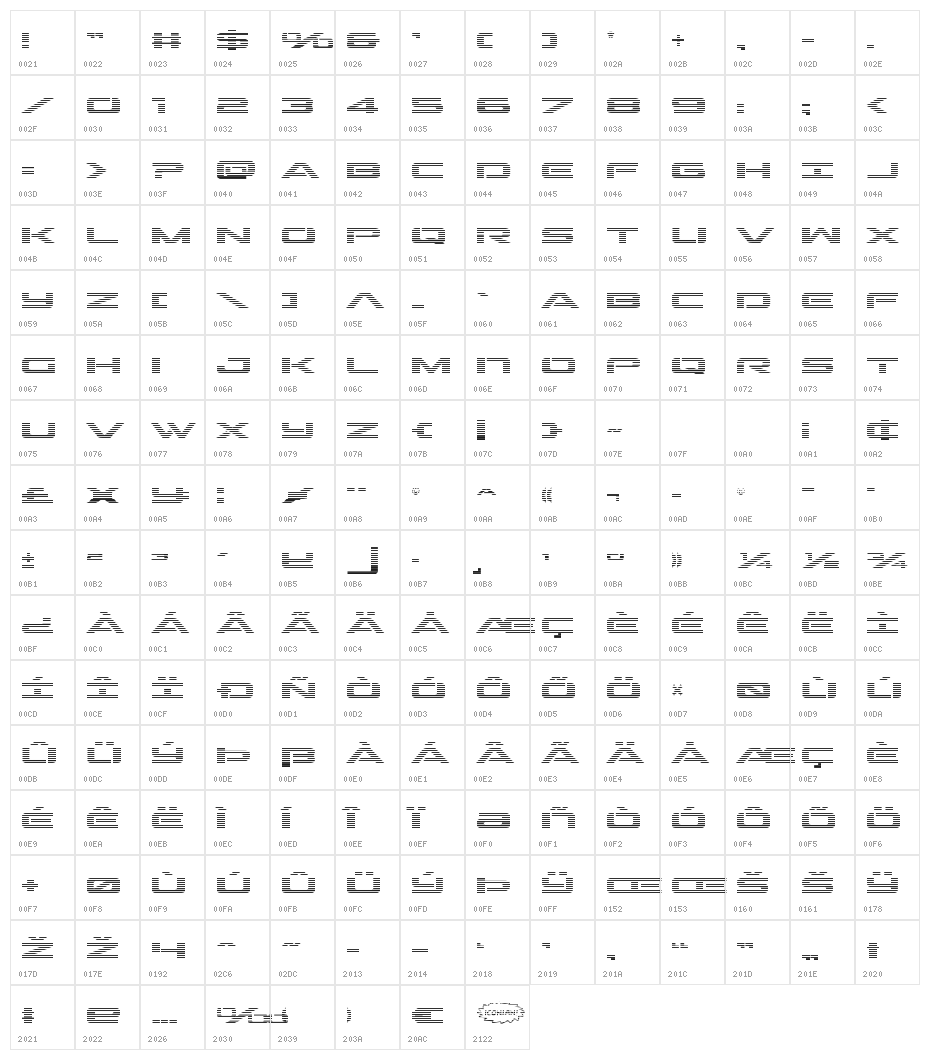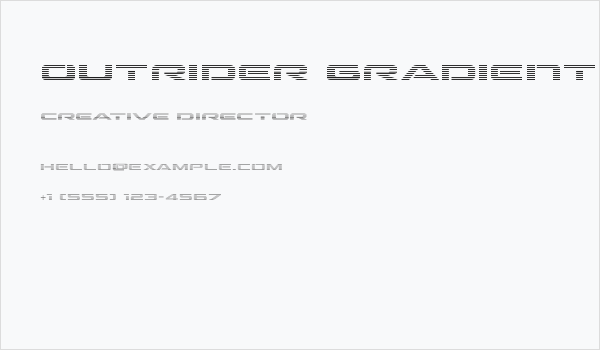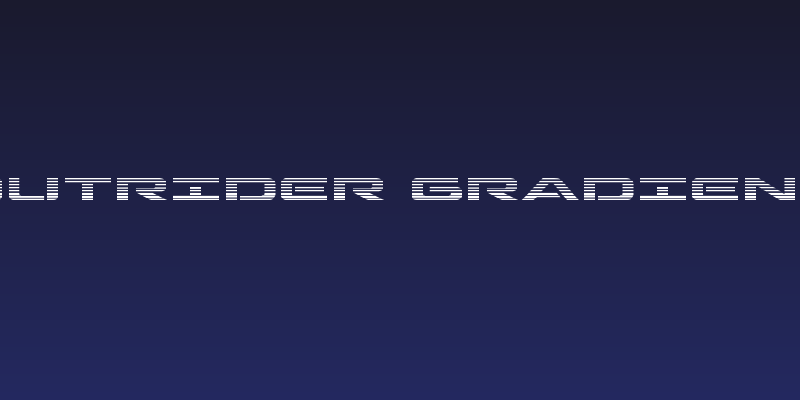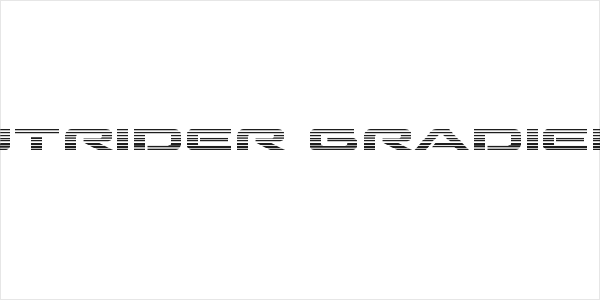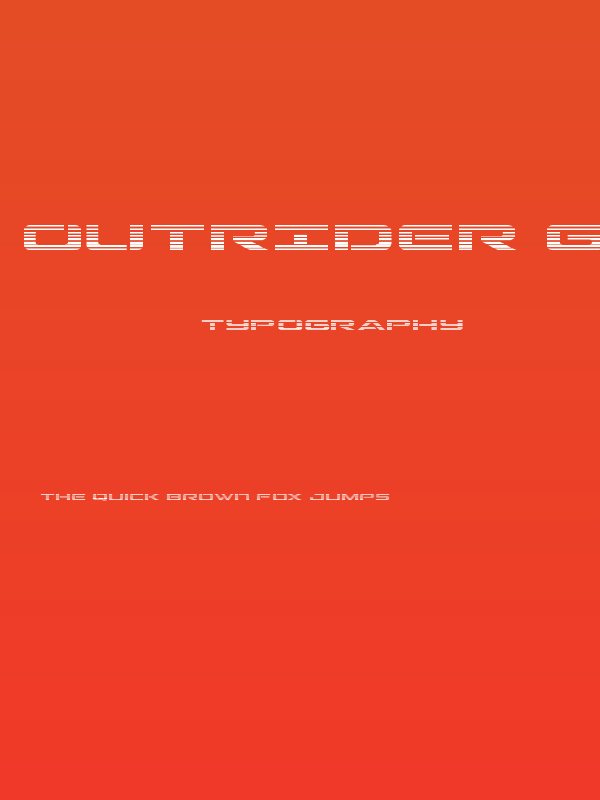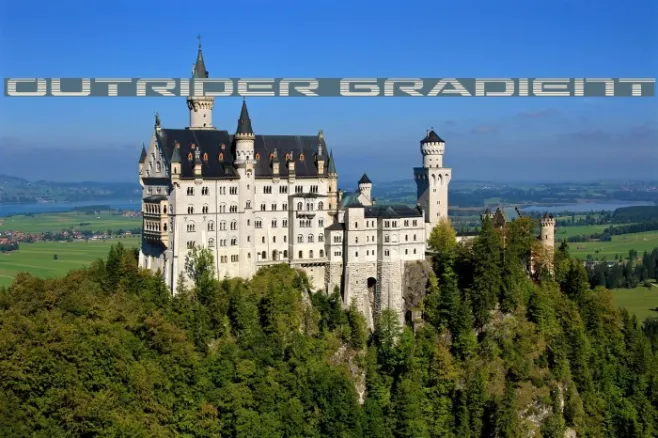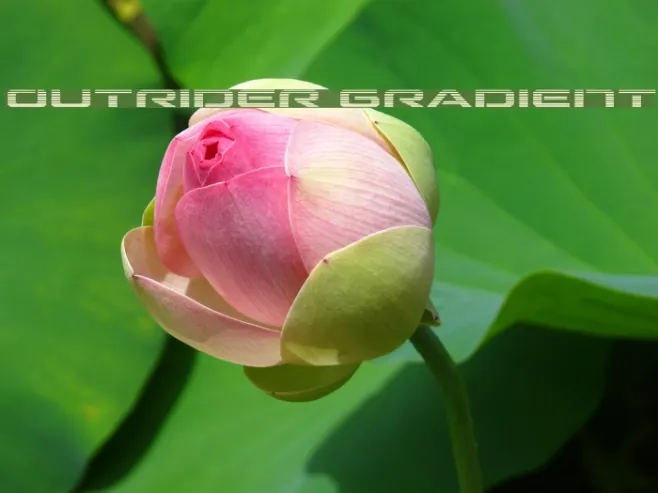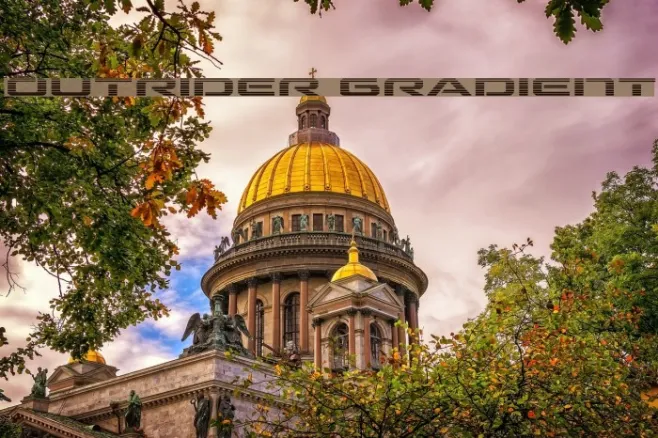
Outrider Gradient Font
Outrider Gradient Description
This font features a futuristic and dynamic design with a distinct gradient effect created by horizontal lines. Each character is composed of multiple parallel lines, giving it a sense of motion and depth. The angular and geometric shapes of the letters contribute to a modern and edgy aesthetic. The uppercase and lowercase letters maintain a consistent style, while the numerals and special characters complement the overall design. This font is ideal for projects that require a bold and eye-catching look, such as technology-related branding or sci-fi themed designs.
| Proposed Projects | Ideal for technology branding, sci-fi themed designs, video game titles, and futuristic posters. |